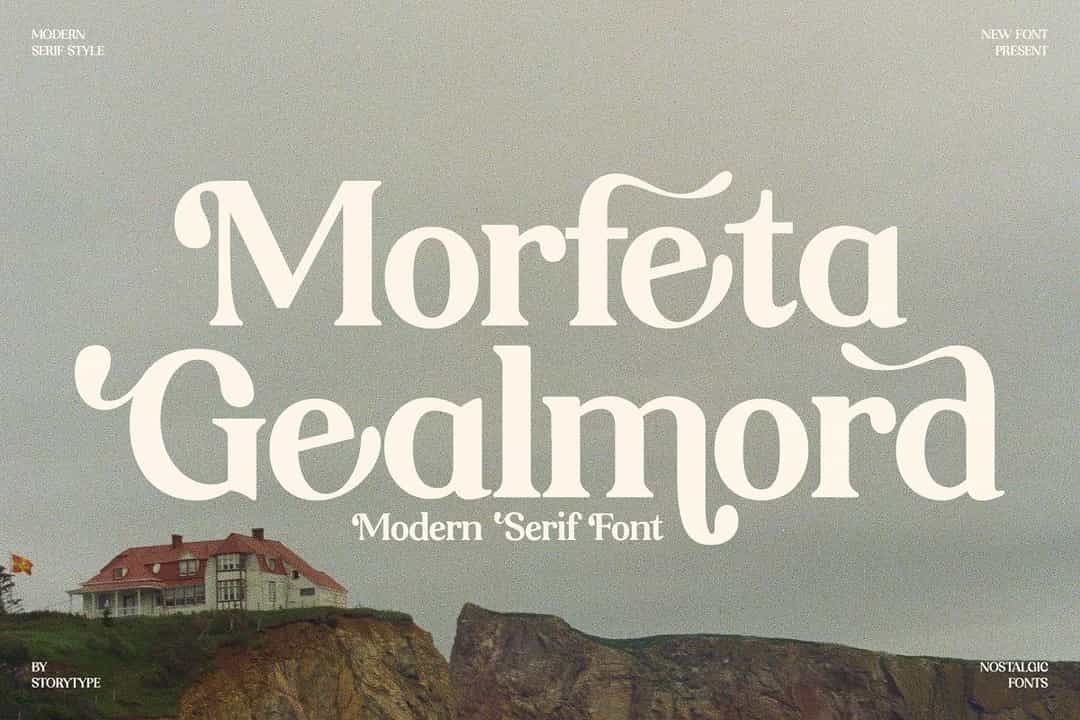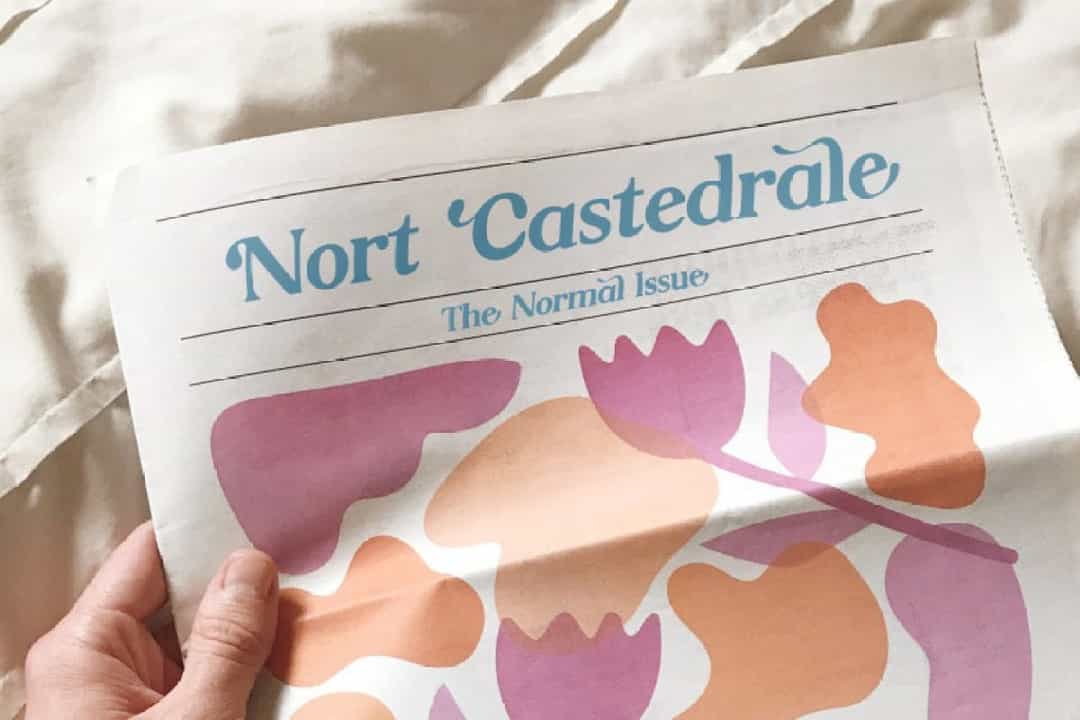
Morfeta Gealmord Typography is an elegant serif typeface perfect for creating stylish logos, book or film titles, fashion brands clothing magazines and lettering works as well as quotes.